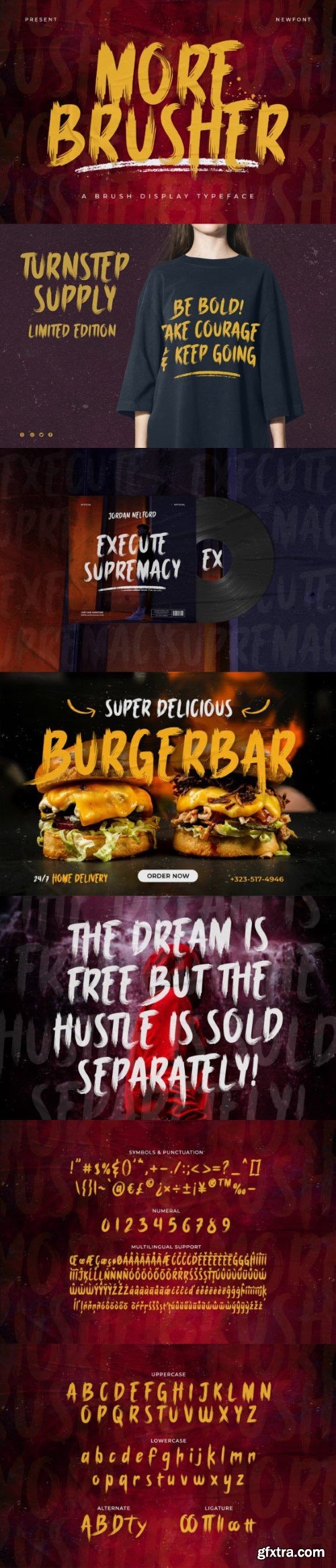
更多的笔刷字体
Ignite your creativity with “More Brusher” – a brush display typeface that bursts with energy and artistic flair. Embrace the expressive power of “More Brusher” as it breathes life into your projects. Whether you’re working on bold branding, adventurous artwork, fashion campaigns, or social media graphics, this typeface will make a lasting impression with its brushy and impactful style.